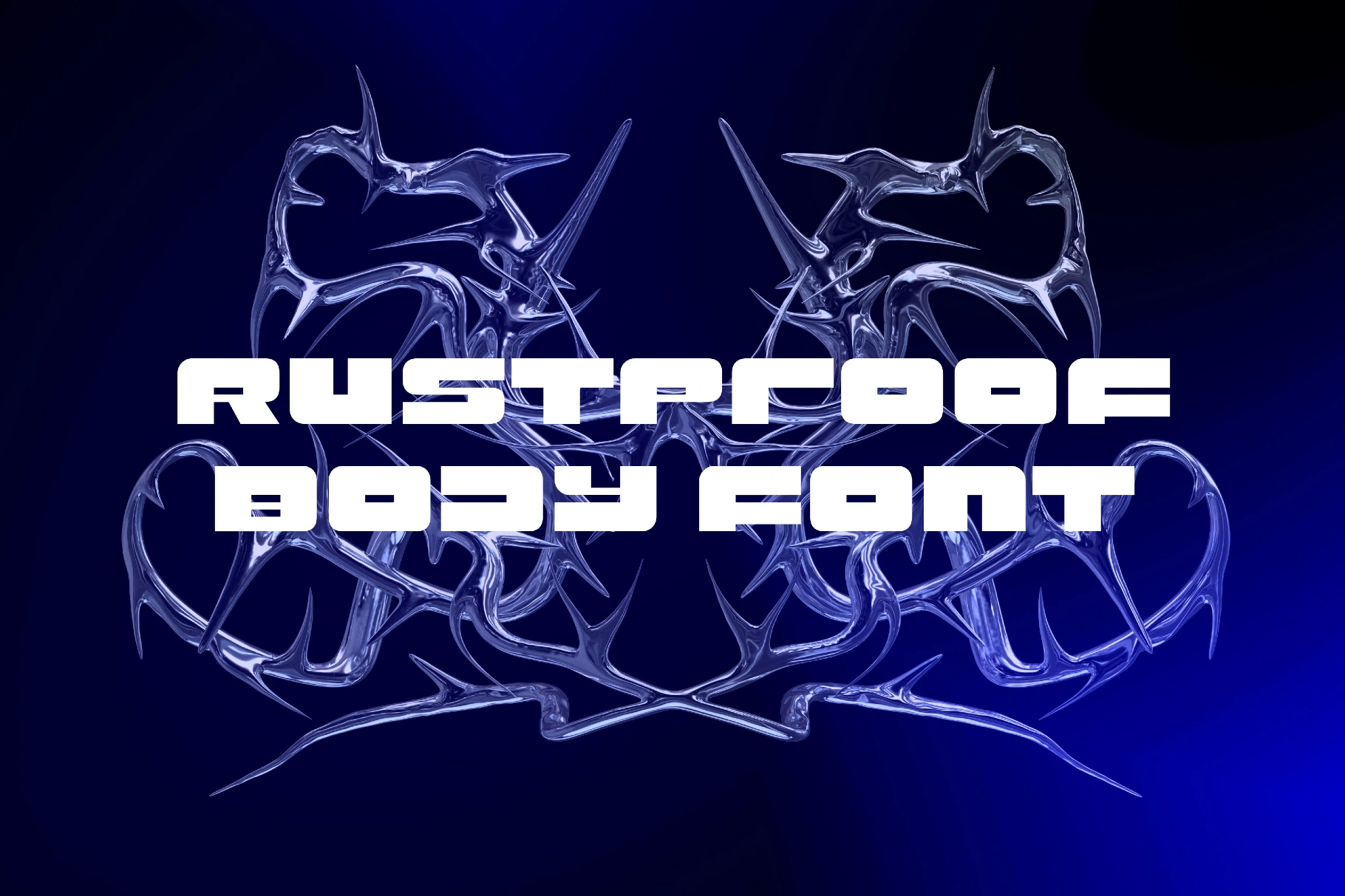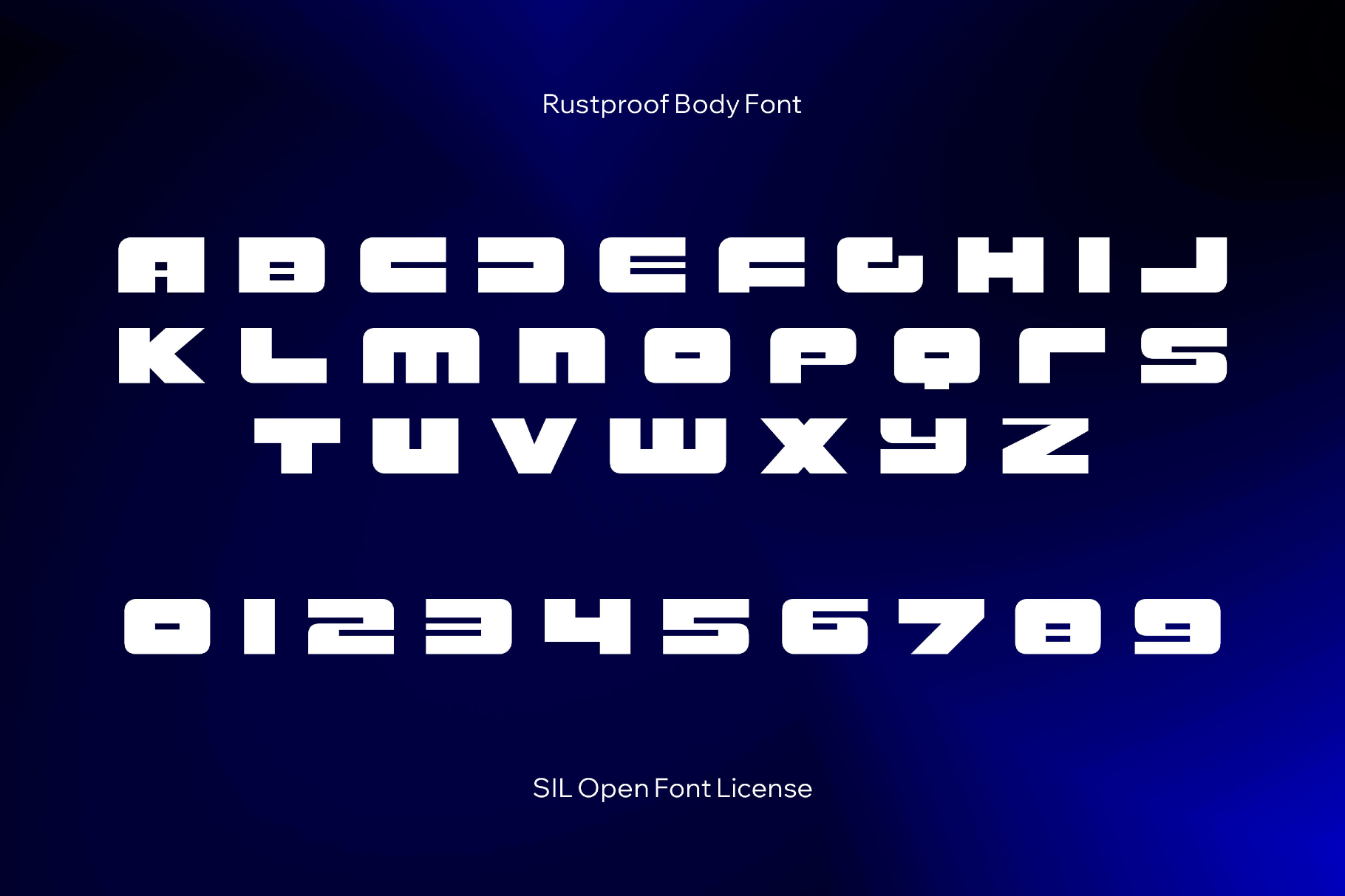
Rustproof Body Font
Rustproof Body
This sturdy, industrial font recalls American roadside signage and letterpress-era editorial typography. Its extra-wide, unicase-style shapes on a low, heavy profile with rounded corners and thick horizontal strokes. Rustproof is a natural fit for long-form reading, racing and motorsport branding, magazine layouts, dashboard and HUD mockups, car-culture posters, book interiors, packaging copy, brand systems, menus, and website typography.